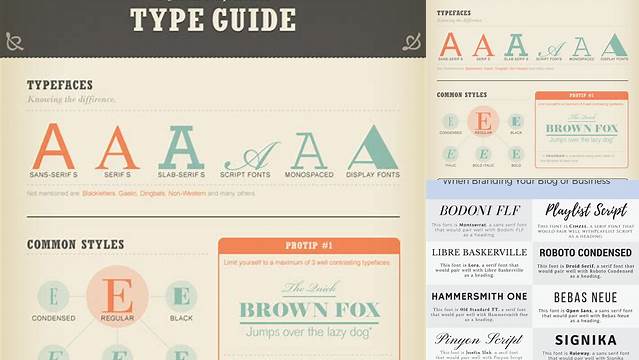
Fonts And Lettering Styles: A Comprehensive Guide
Alright, folks! Let's dive headfirst into the awesome world of fonts and lettering styles! This is more than just picking a font; it's about crafting a message, setting a mood, and making your words pop. Whether you're a seasoned designer, a budding artist, or just someone who loves a good font, this guide is your ultimate companion. We're gonna explore everything from the basics to the nitty-gritty details, ensuring you're well-equipped to make your lettering dreams a reality. Buckle up, buttercups, it's gonna be a fun ride!
Understanding the Core Elements of Fonts and Lettering
So, before we go all fancy and look at the amazing fonts and lettering styles, let's break down the core elements. It's like building a house; you gotta know the foundation, right? First up, we have anatomy - the parts of a letter. Things like the x-height (the height of lowercase letters), ascenders (the parts that go up, like in 'b' or 'd'), and descenders (the parts that go down, like in 'p' or 'g') are super important. Knowing these helps you understand how a font is constructed and how it works with other fonts. Then we have kerning and tracking. Kerning is about adjusting the space between specific letter pairs (like 'AV' – which often looks weird without kerning), while tracking adjusts the overall space between all the letters in a word or a block of text. These details can make or break the visual appeal of your work. Another crucial element is the weight and style of the font. Weight refers to how thick the strokes of a letter are – think light, regular, bold, and black. Style refers to variations like italic or oblique. Combining different weights and styles is a powerful way to add emphasis and create visual interest. Also important is leading (pronounced 'ledding'), or line spacing. It's the vertical distance between lines of text. Adjusting leading can make text more readable or create a specific aesthetic. Finally, don't forget about serifs and sans-serifs. Serifs are the little decorative strokes at the ends of letters (like Times New Roman), while sans-serifs don't have them (like Arial). Understanding these elements is your secret weapon in the world of design and typography.
Exploring Different Font Families and Their Characteristics
Now, let's talk about the exciting part – fonts and lettering styles families! This is where things get really fun. There are four main font families: serif, sans-serif, script, and monospace. Each has its unique characteristics and ideal uses. Serif fonts are classic and traditional, perfect for body text and conveying a sense of authority or history. They’re like the reliable old friend you can always count on. Common examples include Times New Roman, Georgia, and Garamond. Then, we've got sans-serif fonts, which are modern, clean, and versatile. They're perfect for digital interfaces, headlines, and anything that needs a contemporary feel. Think Arial, Helvetica, and Open Sans. They're like the cool, minimalist friend. Script fonts mimic handwriting, adding a touch of elegance, personality, or a handcrafted feel. They're perfect for invitations, logos, and anything that needs a personal touch. But be careful: they can be harder to read at small sizes. Examples include Brush Script, Lobster, and Pacifico. They're like the artsy friend who’s always up for something creative. Finally, monospace fonts give each letter the same width. They’re traditionally used in coding or for replicating the look of a typewriter. Examples include Courier New and Monaco. Each font family comes with its personality, and finding the right one is an integral part of your design journey.
The Art of Typography: Mastering Font Selection and Pairing
Choosing the right fonts and lettering styles is an art form, my friends. Think of it like putting together an outfit. You wouldn't wear a tuxedo with sneakers, would you? The goal is to create a harmonious visual experience. Font pairing involves combining two or more fonts that complement each other. A good starting point is the contrast principle: pair a serif font with a sans-serif font. They're like peanut butter and jelly – they just work. Another way is to consider the mood you want to create. If you want to give a sense of elegance, pair a serif font with a delicate script font. Keep the number of fonts in your design to a minimum. More than three fonts and things could get messy. Hierarchy also plays a vital role. Use different font sizes, weights, and styles to show the importance of different text elements. This way, readers understand where to focus their attention first. Also, consider the legibility of the fonts you choose. Don't pick a font just because it looks cool if it’s hard to read. Testing your design on different devices and screen sizes is crucial. What looks great on your computer might not look great on a phone. Lastly, always remember the context. What works for a wedding invitation might not work for a website. Knowing your audience and the goal of your design will guide your font selection.
3.1 Understanding the Principles of Font Hierarchy
Alright, let's dig into font hierarchy, a crucial component of understanding fonts and lettering styles. Think of it as the roadmap of your text, guiding your reader's eye through the information. A well-structured hierarchy makes your content easy to digest and aesthetically pleasing. The primary tool for creating hierarchy is through size. Bigger font sizes grab attention, naturally signaling the start of a new section or an important point. Varying font sizes helps you distinguish between headings, subheadings, and body text. For example, your main heading should be the largest, followed by subheadings, then body text. Weight also plays a significant role. Bold fonts draw attention, highlighting key information and making it stand out. You can use bold text to emphasize crucial words or phrases within your body paragraphs. Italics can indicate emphasis or differentiate between different content elements, like quotes. The use of color is another great tool. It can be used to highlight important sections or phrases. However, be sure to maintain contrast between the text color and the background color for legibility. Another key element is the use of white space, which creates visual separation between elements, preventing the text from looking cluttered. The strategic use of these elements makes sure your readers understand the information. Lastly, using different font styles and weights to create visual contrast and add depth. It's a delicate balancing act. It allows you to create a clear, engaging, and effective design.
3.2 Font Pairing: Finding the Perfect Combinations
When it comes to choosing the right fonts and lettering styles, font pairing is a game-changer. Finding the perfect combinations is a bit like finding your perfect match. There are several approaches to font pairing. One popular method is the contrast method. Contrast is about choosing fonts with different styles and characteristics. For example, combining a serif font for headlines with a sans-serif font for body text, or vice versa. This provides visual interest and helps distinguish between different content sections. A contrasting combination can create a dynamic and engaging design. Another technique is the complementary method, which involves choosing fonts that share some visual similarities. This method can provide a sense of unity and cohesion. This is especially effective when using different weights or styles within a font family. Monotype matching is another way to find the perfect pairing. You can choose fonts that share similar characteristics, but with some subtle variations, or pairing different fonts from the same font family. Remember, the goal is to create a harmonious and visually appealing composition. Using online tools like Google Fonts or FontPair will provide you with ideas for font pairing, while practicing and experimenting will help you find your own style.
3.3 Legibility and Readability: Ensuring Text Clarity
Let's talk about the most important part when it comes to fonts and lettering styles – legibility and readability. All the stunning fonts in the world won't matter if no one can actually read your message. Legibility refers to how easily individual letters and characters can be distinguished from each other. Readability is about how comfortably the text can be read over an extended period. Start with choosing fonts that are inherently legible. Sans-serif fonts often work well for digital displays because of their cleaner, simpler forms. Select fonts with clear letterforms, avoiding overly stylized or decorative fonts for body text. Another crucial factor is font size. Make sure the text is large enough to be read easily, adjusting the font size for different devices and screen sizes. Line length is also very important to legibility. Very long lines of text can be hard to follow, while very short lines can make the text choppy. Also, consider the color contrast between the text and the background. Make sure there's a strong contrast between the text and the background. Dark text on a light background is generally the easiest to read. Avoid using text that is too close to the background color. Proper spacing between letters (kerning), words (tracking), and lines of text (leading) will help increase readability. Too much or too little spacing can make the text difficult to read. Lastly, test your design on different devices and screen sizes to ensure that the text remains legible and readable for everyone.
Exploring Different Lettering Styles and Techniques
Now, let's unleash the creativity with fonts and lettering styles! We're gonna explore the coolest techniques that will make your work stand out. Calligraphy is the art of beautiful writing. It involves using a pen and ink to create elegant letters with varying line weights. Calligraphy is a great way to add a touch of sophistication and personalization. Hand lettering is the art of drawing letters by hand, often with unique flourishes and details. Hand lettering provides a unique and personal touch to your design. Brush lettering uses a brush pen or a similar tool to create thick and thin strokes. It has a dynamic and expressive style. This style is perfect for creating vibrant and eye-catching lettering. Chalk lettering is the art of creating lettering with chalk. It is often used on blackboards or other surfaces. Typography takes all these concepts, combining and applying the different types of letters. The main purpose is to set the style of your design, making it unique and engaging. Learning all the techniques is really exciting, allowing you to customize your lettering to meet your specific needs.
4.1 Calligraphy Techniques: Mastering the Art of Beautiful Writing
Let's dive into the fascinating world of calligraphy, an important part of learning about fonts and lettering styles. It's not just about pretty letters; it's a blend of art, precision, and patience. The basic tools you will need are a pen holder, nib, ink, and paper. There are several types of nibs. The pointed pen is versatile, allowing you to create thick and thin strokes by varying the pressure. The broad-edge pen is perfect for creating bold, consistent strokes. Also, make sure you choose the right ink for your chosen nib and paper type. Practice is the key. Start with basic strokes and gradually move to more complex letterforms. Learning the basic strokes, such as upstrokes, downstrokes, and ovals, will build the foundation for beautiful lettering. Then, focus on the fundamental forms of each letter. This will help you develop muscle memory and consistency. Experiment with different pen angles, pressures, and ink flow to achieve different effects. Another important aspect of calligraphy is knowing the correct letter structure. Each letter has a unique structure, and understanding these will make sure that your letters are proportional and visually appealing. Once you master the basic strokes and letterforms, you can start experimenting with different styles. Have fun and enjoy the process!
4.2 Hand Lettering vs. Typography: Understanding the Differences
Alright, let's clear up the differences between hand lettering and typography in the realm of fonts and lettering styles. These terms are often used interchangeably, but they refer to different approaches and have distinct purposes. Hand lettering is the art of drawing letters by hand. Each letter is crafted with unique strokes, flourishes, and details. Hand lettering is all about creating custom designs, so it has a personal touch, ideal for logos, titles, and unique designs. This technique allows for a high degree of personalization and can capture a specific mood. On the other hand, typography is the art and technique of arranging type to make written language legible, readable, and appealing. Typography utilizes pre-designed letterforms – fonts – and focuses on arrangement, spacing, and visual hierarchy. It uses these elements to convey a specific message, making it suitable for body text, headlines, and consistent branding. Typography is generally more focused on efficiency and consistency. Hand lettering can become a key component of typography. Hand lettering is ideal for designs where individuality and uniqueness are valued, while typography is best for projects that require efficiency, legibility, and consistency. In practice, these two techniques often blend together. Knowing how each works and how they combine is essential for every designer.
4.3 Brush Lettering: Achieving Dynamic and Expressive Styles
Brush lettering, a fantastic skill to add to your arsenal of fonts and lettering styles, is all about capturing dynamic and expressive styles. The magic behind brush lettering lies in the tools. The most common is a brush pen, which features a flexible tip that allows for varying line weights. You'll also need quality paper, like marker paper. You will also need ink, and other pens like fine liners. Practice is key. Start by practicing the basic strokes. Mastering the upstrokes, downstrokes, and ovals will lay the foundation for creating beautiful letters. Varying the pressure on your brush pen creates the thick and thin strokes that give brush lettering its unique look. Press harder to create thick downstrokes and use less pressure for thin upstrokes. Remember, consistency is critical. Practice each letter individually, focusing on the correct forms and transitions. Pay attention to the letter structure and spacing, just like calligraphy. Remember, the aim is to have a beautiful, dynamic design. Don't be afraid to experiment and let your creativity flow. Once you feel comfortable with the basics, you can try out different styles, like bounce lettering. Have fun and enjoy the process!
Digital Lettering: Transforming Traditional Skills into Digital Art
Let's move into the digital age and talk about fonts and lettering styles. Combining traditional skills with the digital world. Digital lettering combines the beauty of traditional lettering with the flexibility and versatility of digital design tools. It involves creating lettering on a digital device, like a tablet, using a stylus and design software. Digital lettering provides a range of possibilities. Digital lettering offers the ability to easily correct errors. Creating different color variations and experimenting with effects are also part of the process. Software like Procreate, Adobe Illustrator, and Affinity Designer are popular for digital lettering. Digital lettering is great for creating illustrations, logos, and social media graphics. Digital lettering is a fantastic skill to explore. The process of creating digital lettering often begins with sketching. Then you can take the finished design and refine the details and add additional embellishments. Digital lettering is the future of lettering. It lets you create awesome projects.
5.1 Using Design Software for Lettering: A Step-by-Step Guide
Okay, let's get our hands digital and learn how to use design software for fonts and lettering styles. There are so many options for software, but the goal is to master the process. Using design software for lettering is a powerful tool. First, you need the right software. Some popular choices are Procreate (for iPad), Adobe Illustrator, and Affinity Designer. Procreate is great for illustration and hand lettering, while Adobe Illustrator is a vector-based program. Vector images are great for scalability. Affinity Designer is a good alternative. Once you've selected your software, start by creating a new document and defining your canvas size. This determines the dimensions of your design. Next, import your sketch. The sketch will serve as your reference. If you don't have a sketch, you can create your lettering directly in the software using a digital brush or pen tool. Use the pen tool, to create curves and lines. For hand lettering, use the brush or pencil tools to replicate the look and feel of traditional lettering. Customize your brush or pen. Adjust the size, opacity, and pressure sensitivity of your brush to achieve the desired effect. Experiment with different colors and effects. You can modify your lettering using various techniques, such as adding shadows, textures, and gradients. Review your design. Always zoom in and check the details. The ability to make changes quickly is a huge advantage of digital lettering. Digital lettering is a great way to learn new skills. Digital lettering offers many benefits.
5.2 Digital Lettering on Tablets: Procreate and Other Apps
Let's dive into the world of digital lettering, with a focus on tablets and applications like Procreate, and other awesome apps that enhance fonts and lettering styles. Using tablets offers a combination of creativity, convenience, and versatility. Procreate is a popular app for iPad users. Procreate provides a user-friendly interface, making it easy to learn and use. It has an extensive selection of brushes, offering a wide range of styles and textures, from traditional calligraphy pens to digital brush pens. Procreate supports Apple Pencil, which allows for pressure sensitivity. Affinity Designer is another powerful alternative, offering advanced features and tools. It is a vector-based application, which offers precision and scalability. This means that your designs can be resized without losing quality. Other options include Adobe Fresco. No matter your choice, all of these apps provide a range of tools and functionalities. You can use the stylus to create your lettering and easily correct any mistakes. You can modify the size, opacity, and pressure sensitivity to achieve different effects. Experimenting with these settings is key to finding the perfect brush for your style. Using applications makes your design process more flexible and efficient. Have fun, and don't be afraid to experiment with different tools.
5.3 Vector vs. Raster: Understanding File Formats for Digital Lettering
Let's talk about the essential topic of fonts and lettering styles: Understanding the differences between vector and raster file formats, specifically in the context of digital lettering. These file formats are key to how your design is stored, edited, and used. Raster files (also known as bitmap images) are composed of a grid of pixels. Each pixel contains color information, and when these pixels come together, they form an image. Raster files are perfect for images with complex colors and details. Raster files are suitable for photo editing. However, the downside of raster files is that they become pixelated when you scale them up. Common raster file formats include JPEG, PNG, and TIFF. Vector files, on the other hand, are based on mathematical equations that describe the shape, size, and position of elements within the design. This means vector images are resolution-independent. You can resize them to any size without losing any detail. Vector files are perfect for logos, illustrations, and other designs that will need to be scaled up or down. Common vector file formats include SVG, EPS, and AI. Understanding the differences between vector and raster is crucial for digital lettering. If you're creating a design for print, you'll probably use a vector format to make sure your design comes out clear. If your design is for digital use, you can choose either format, depending on your needs. It's important to choose the right file format. Both have strengths and weaknesses, and selecting the right one will make your designs the best.
The Evolution of Fonts and Lettering: From Ancient Times to Modern Design
Alright, let's take a trip through time and explore the evolution of fonts and lettering styles. From cave paintings to the digital age, letters have always been a fundamental way of communication and self-expression. It all started with cave paintings, then came the pictograms, which evolved into symbols, and, eventually, into alphabets. The Phoenicians were the ones who created an alphabet. The Greeks adopted and developed the alphabet, adding vowels and perfecting the form of writing. From the Greeks, the Romans adopted and developed their own letterforms. The Roman alphabet became the foundation of the Latin alphabet, which spread across Europe. During the Middle Ages, different styles of lettering emerged, including Gothic script, and Blackletter. With the invention of the printing press in the 15th century, typography took off. The printing press led to the standardization of letterforms and enabled the mass production of printed materials. The Industrial Revolution brought the rise of new technologies, and the design of fonts evolved. The 20th century saw the rise of modern typography, the development of new font families, and the exploration of abstract and experimental forms. Today, we have a huge array of fonts available. Technology has changed the way we design with type.
6.1 The History of Typography: A Journey Through Time
Let's dive into the history of typography, a fascinating journey that brings us to the core of fonts and lettering styles. Typography's roots can be traced back to ancient civilizations. The ancient Egyptians used hieroglyphs and the Phoenicians created a writing system. These innovations paved the way for the development of the alphabet. The Greeks developed the alphabet, and the Romans further refined it. The Romans created a style of writing that became the foundation of the Latin alphabet, which we use today. As the printing press became more sophisticated, the design of typefaces changed. From the 15th to the 18th centuries, the printing press became mainstream. The Industrial Revolution saw the evolution of typefaces. The 20th century saw the rise of modern typography. The history of typography is a fascinating story. The history shows how the letterforms have evolved to meet the needs of society. Understanding the history of typography is important. Knowing how typography has changed will help us understand the importance of type.
6.2 The Impact of the Printing Press on Font Design
The impact of the printing press on fonts and lettering styles was truly revolutionary. Before Johannes Gutenberg's invention, books were painstakingly handwritten by scribes, making them expensive and time-consuming to produce. The printing press changed everything. The printing press allowed for the mass production of books and other printed materials. This led to a demand for standardized letterforms. This meant the design of typefaces started to change. The printing press also spurred innovation in type design. Different typefaces emerged, each with unique characteristics and styles. Type designers created new fonts with varying weights, styles, and sizes. The impact of the printing press transformed not only the design of fonts but also the way information was disseminated. This led to the spread of knowledge, literacy, and cultural exchange. The printing press also democratized access to information. The impact of the printing press has had a huge effect on font design. This invention changed the way we share information. Today, we're still using the same techniques.
6.3 Modern Font Design: Trends and Innovations
Let's explore fonts and lettering styles, specifically modern font design, its trends, and the innovations shaping how we see text today. Modern font design is about breaking boundaries and finding new ways to express ideas. One of the key trends is variable fonts. Variable fonts are a game-changer. Variable fonts allow designers to have a single font file that can adapt to different weights and styles. This results in reduced file sizes and greater flexibility. Another trend is the focus on inclusive design. Designers are creating fonts that support diverse scripts. The use of retro and vintage fonts has also gained popularity. These fonts bring a sense of nostalgia. The rise of custom fonts is another major trend. Brands and businesses are commissioning unique fonts. Innovation in modern font design is continuing. The goal is to find new ways to create typography. Modern font design is constantly evolving, reflecting changes in technology and culture. Modern design is a vibrant field, with a focus on innovation and inclusivity. This allows designers to make sure that everyone can enjoy the world of typography.
Resources and Inspiration: Learning and Staying Inspired
Let's finish this guide with some awesome resources and ways to stay inspired about fonts and lettering styles. Whether you are just starting or are a professional, there is a wealth of resources at your fingertips. There are online courses, books, and communities. Online courses like Skillshare and Udemy offer many courses on calligraphy, hand lettering, and typography. Also, many websites are dedicated to typography. Then, join online communities, like Behance and Dribbble. These platforms are filled with lettering and design enthusiasts. Explore books on typography. The Elements of Typographic Style is a classic resource. Be sure to study other designers' work. Analyzing the work of other designers is a great way to learn. Visit art museums and galleries. Immerse yourself in visual inspiration. Stay curious and keep experimenting. Typography is a fun skill that is worth learning. Learning about fonts, lettering styles, and the resources will boost your design.
7.1 Recommended Books and Websites for Font Enthusiasts
Let's explore recommended books and websites, designed to inspire and educate enthusiasts about fonts and lettering styles. If you're looking to improve your knowledge of fonts, here are some books you should check out: First, The Elements of Typographic Style by Robert Bringhurst. This book is a classic that every designer should have. It goes in-depth on all aspects of typography, including letterforms, spacing, and more. Then, we have Thinking with Type by Ellen Lupton. This book focuses on the principles of typography. Finally, Typography: Formation and Use by Walter Tracy. This is a great resource to get your bearings and learn more about the history and evolution of typography. Aside from books, there are tons of websites available that provide inspiration and resources. Fonts In Use is a website that showcases fonts in real-world design projects. Typewolf is another great site that has articles and news related to typography. Google Fonts provides a wide selection of free fonts. Having these resources handy will enhance your understanding of the amazing world of fonts and letterforms.
7.2 Online Courses and Tutorials: Mastering Typography Skills
Let's dive into the world of online courses and tutorials to master the art of fonts and lettering styles. Nowadays, the web is packed with learning opportunities. Learning online gives you flexibility, and the ability to learn at your own pace. Several platforms offer excellent courses on typography, hand lettering, and calligraphy. Skillshare has many courses that cover a broad range of topics, from beginner-friendly introductions to advanced techniques. Udemy is another great platform. CreativeLive also has many professional instructors. You can find courses covering specific fonts, techniques, and styles. Look for courses that include hands-on projects. Practicing and creating your own designs is the best way to learn. Apart from full courses, you can also find tons of free tutorials on YouTube, blogs, and design websites. Check out channels like The Futur. Remember to practice your skills. With dedication and persistence, you can master the art of typography.
7.3 Finding Inspiration: Creative Communities and Design Platforms
Finding inspiration is a huge part of learning about fonts and lettering styles. There are several creative communities and design platforms that can help you get inspired. The first source of inspiration is creative communities like Behance and Dribbble. These platforms are full of designers, artists, and creatives from all over the world. These are great spaces to learn and find the inspiration you need. Instagram is a popular platform. Look for lettering artists and designers. Following the best of the best on Instagram is the best way to get inspiration. Pinterest is another great platform. You can save your designs. Then, you can visit design blogs. Design blogs and websites provide a ton of content. Joining online communities, following other designers, and visiting art museums are some great ways to get inspiration and improve your design skills. Inspiration is all around us. Let your imagination run wild and enjoy the creative process. Remember to use your imagination and your inspiration will come.